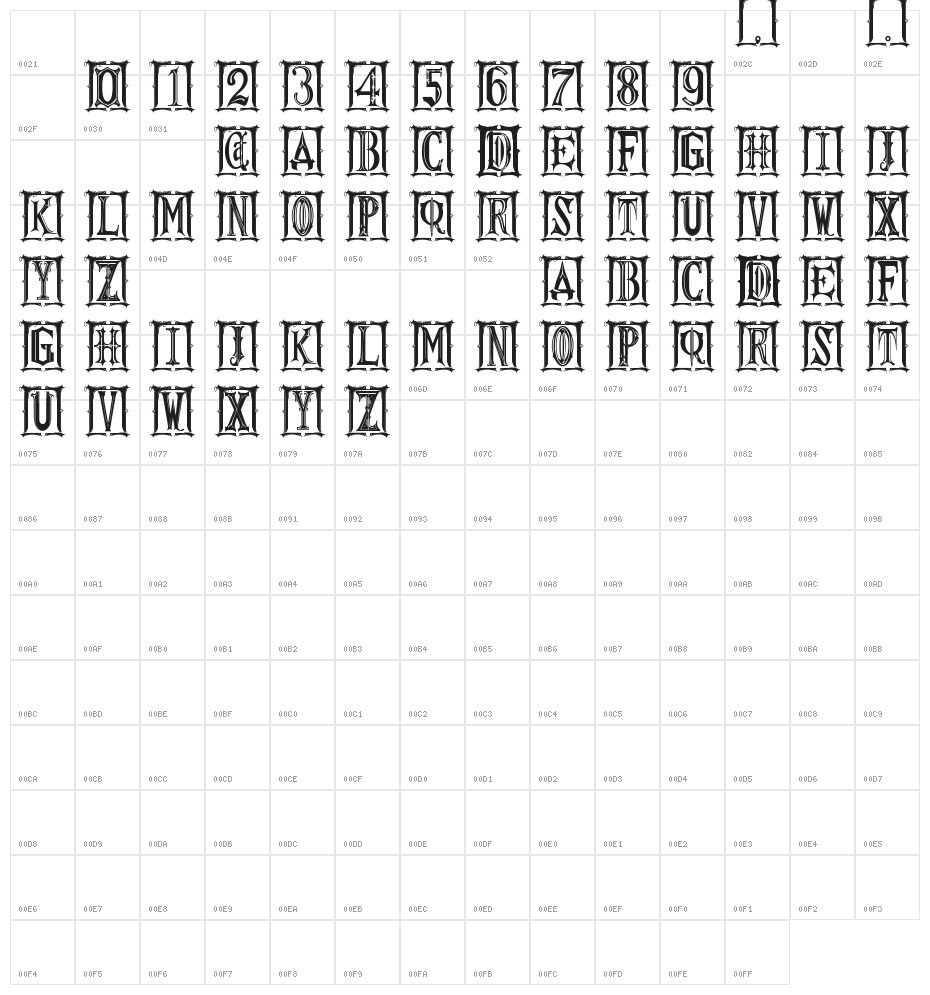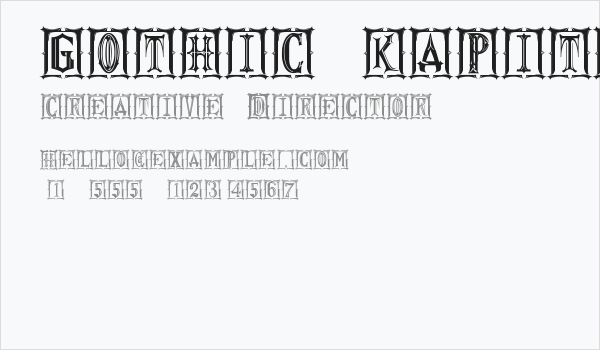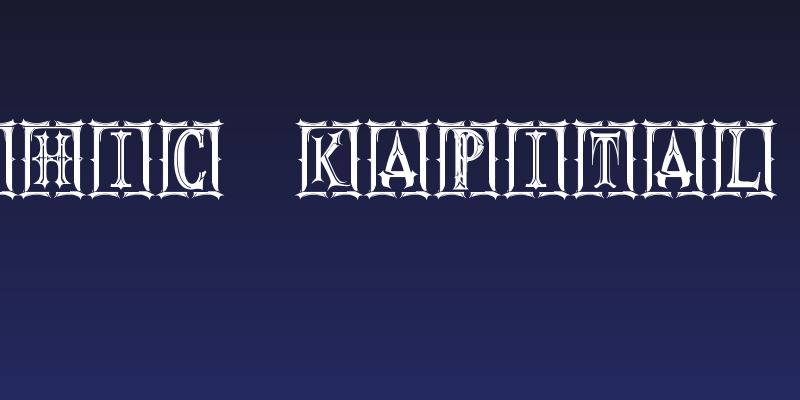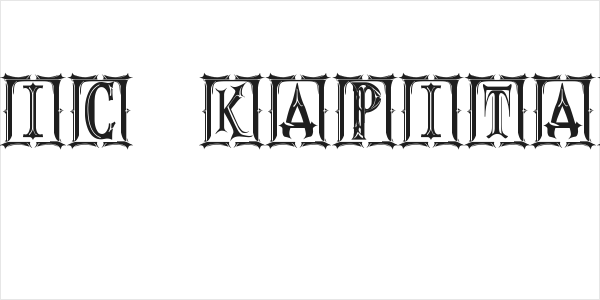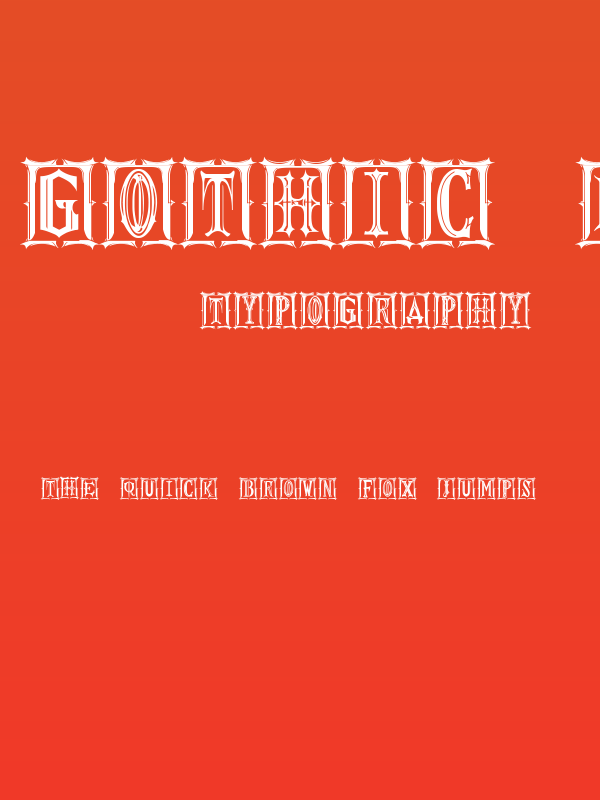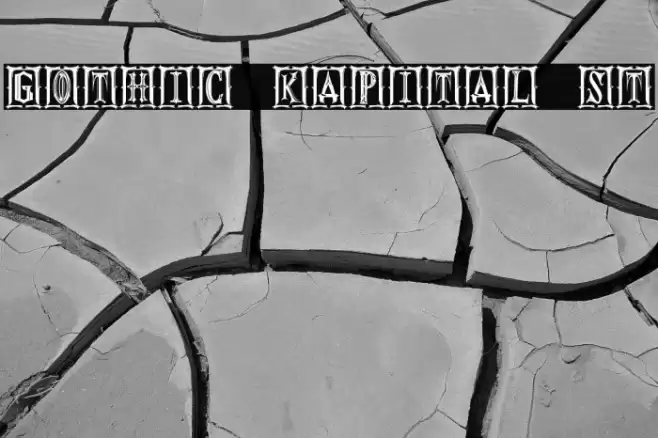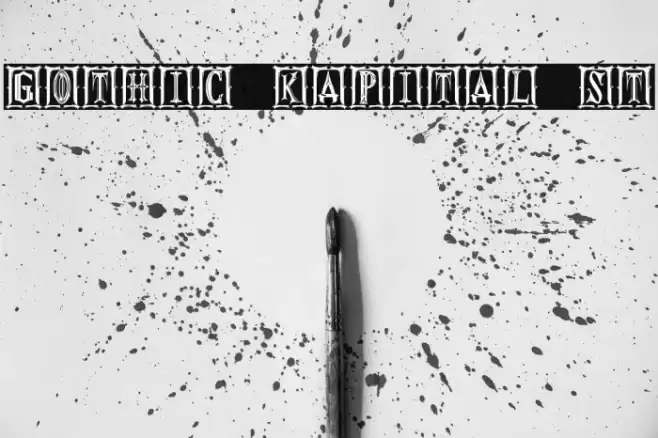
Gothic Kapital St Font
Gothic Kapital St Description
This font exudes a strong Gothic influence, characterized by its intricate and ornate design. Each letter is enclosed within a decorative frame, featuring sharp, pointed edges that give it a medieval and somewhat mysterious appearance. The bold strokes and elaborate detailing make it stand out, capturing attention with its dramatic flair. The font maintains a consistent structure across uppercase, lowercase, and numerical characters, ensuring uniformity. The special characters follow the same ornate style, adding to the overall cohesive look. This font is ideal for projects that require a historical or fantasy theme, offering a unique blend of elegance and intensity.
| Proposed Projects | Ideal for fantasy book covers, historical event posters, themed invitations, and decorative signage. |